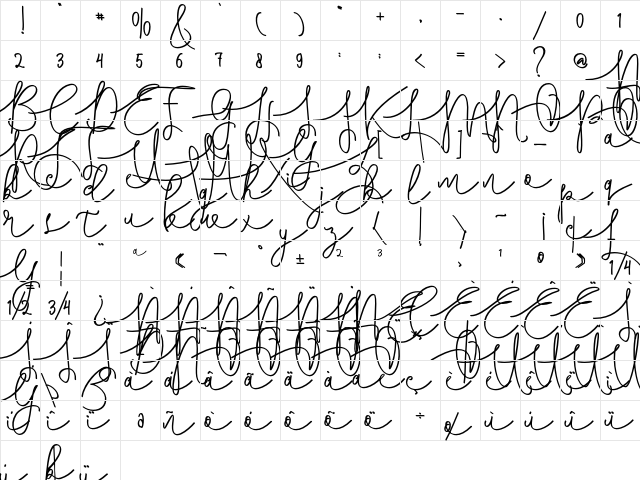
Hasnita Regular
Design Context for Hasnita Typeface
Hasnita is a composed and adaptable typeface that performs quietly and consistently across a wide range of design contexts.